Perfect for creating fun, bouncy designs for kids’ parties, playful projects, and cheerful celebrations. Our tool features delightfully puffy font styles that look like they’re filled with air and ready to float away! And if you need more, try our complete list of bubble fonts.
Create Bouncy Bubble Text in Seconds
Black Bubbles
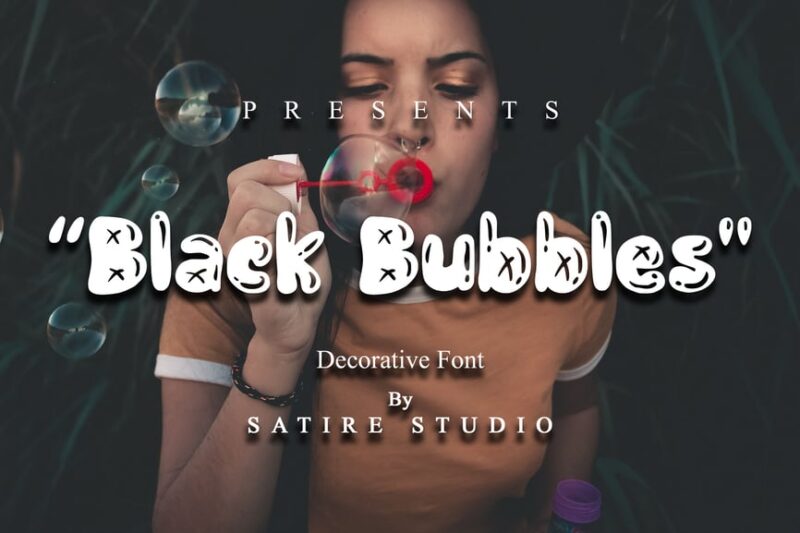
Black Bubbles is a decorative font that features a playful, bubbly design with a bold presence. Its rounded letterforms create a fun and energetic aesthetic, perfect for projects that require a whimsical touch while maintaining readability.
Bubble Mint
Bubble Mint is a charming handwritten font that combines elements of script and sans-serif styles. Its cute and handdrawn appearance lends a friendly, approachable feel to designs, making it ideal for projects that aim to convey a personal or casual tone.
Bubble Shine
Bubble Shine is a playful display font characterized by its rounded, inflated letterforms. This beautiful typeface exudes a sense of joy and excitement, making it perfect for headlines, logos, or any design that needs to capture attention with its bubbly charm.
Bulb
Bulb is a decorative font that incorporates bubble-like elements into its design. The rounded, inflated appearance of the letters creates a soft and friendly atmosphere, suitable for projects that require a light-hearted and approachable feel.
El Mojo
El Mojo is a bold, bubble-pop inspired font that combines sans-serif and decorative elements. Its playful and energetic design makes it particularly suitable for children’s products or designs targeting a youthful audience, while still maintaining a strong visual impact.
Shine Bubble
Shine Bubble is a decorative font that blends retro aesthetics with bold, bubble-like letterforms. Its unique design evokes a sense of nostalgia while maintaining a modern edge, making it versatile for various design projects that aim to stand out.
Sugar Bubble
Sugar Bubble is a playful typeface that lives up to its name with its sweet, bubbly appearance. The font’s funny and quirky design makes it perfect for projects that need to convey a sense of fun and lightheartedness, such as children’s books or candy packaging.
About Bubble-Style Fonts
Our bubble fonts capture the joyful lightness and playful energy that make bubbles so universally loved. These styles bring the perfect balance of whimsy and readability to any project, whether you’re planning a children’s party or simply want to add some cheerful bounce to your text.